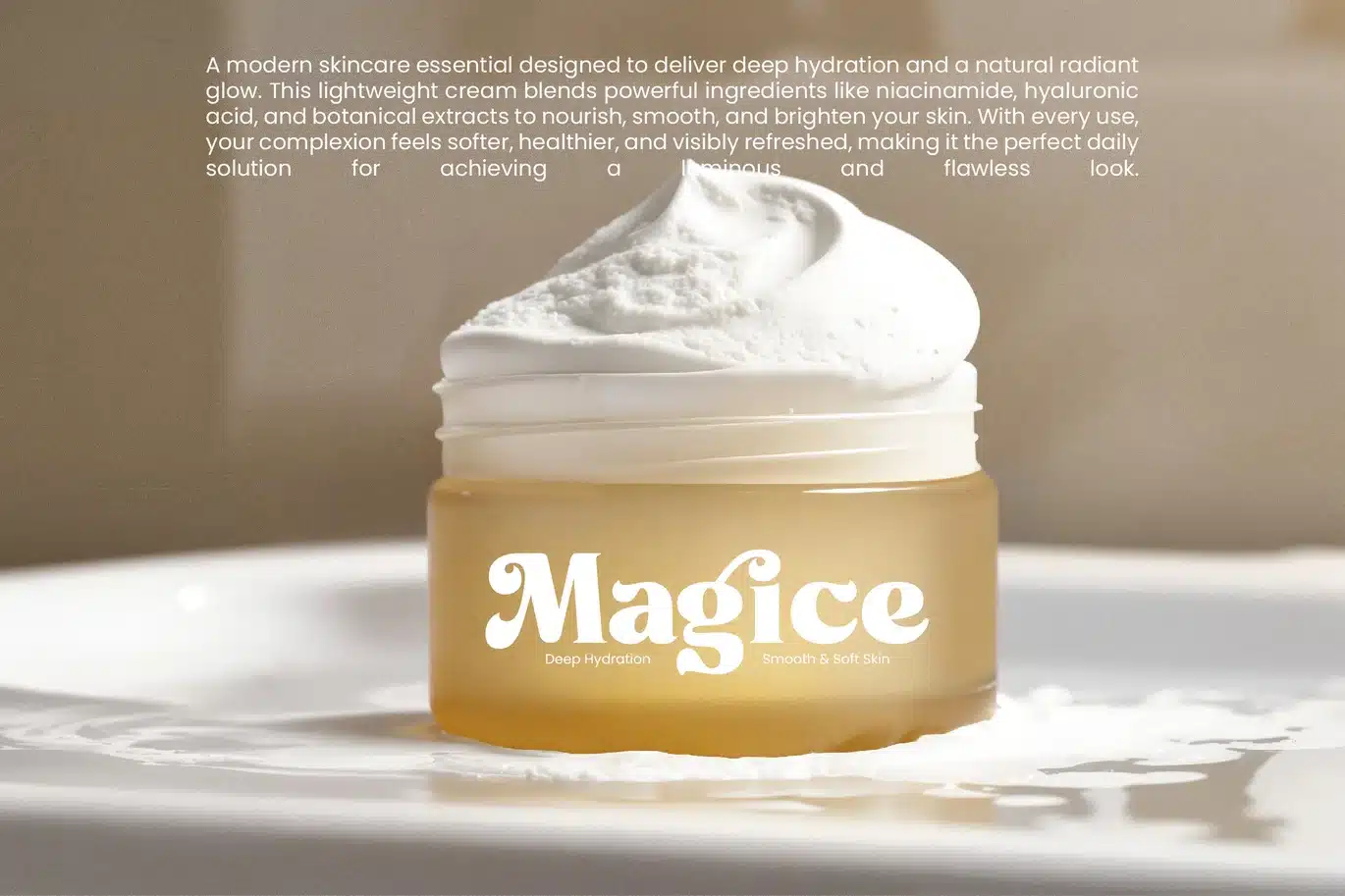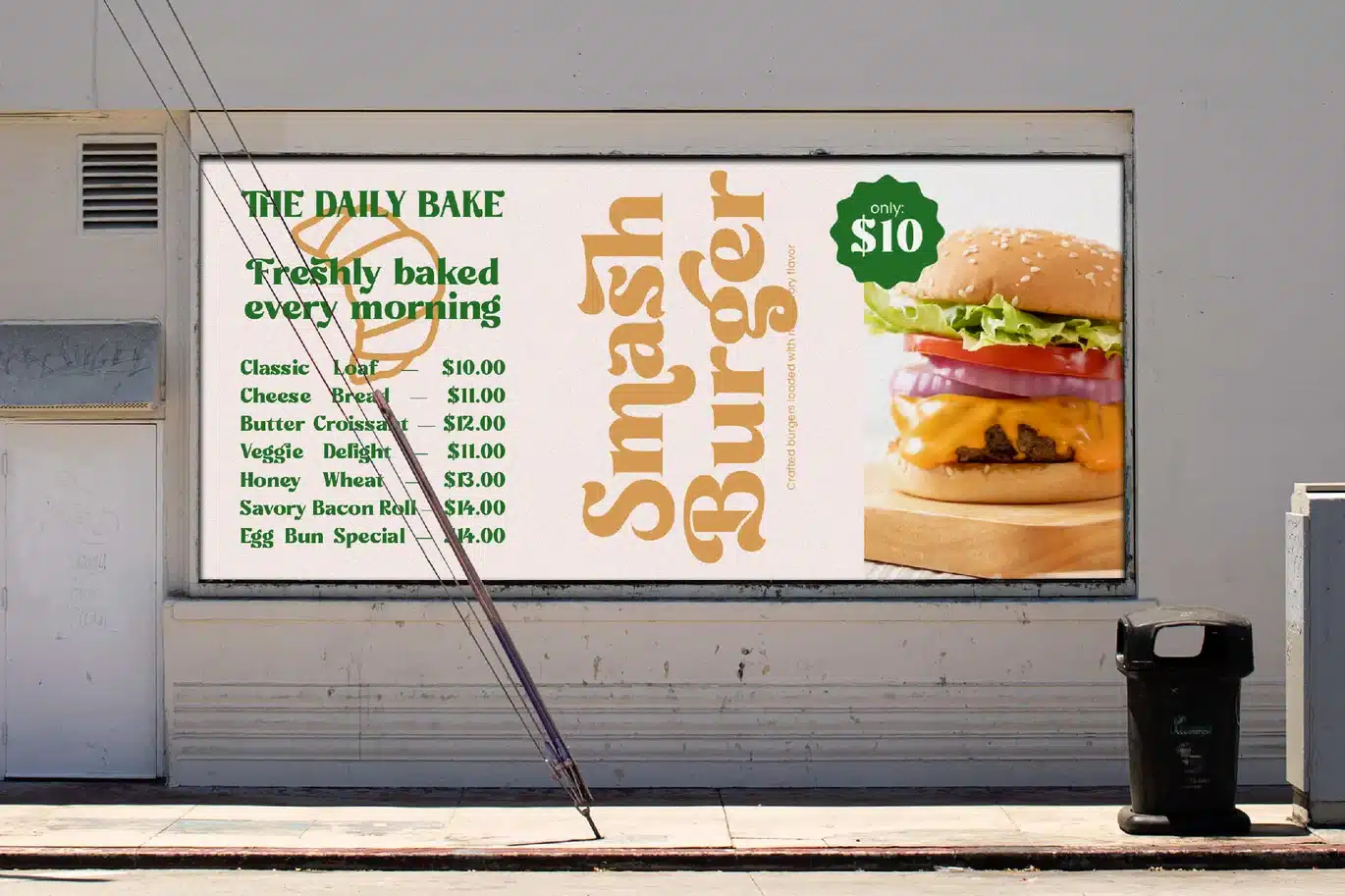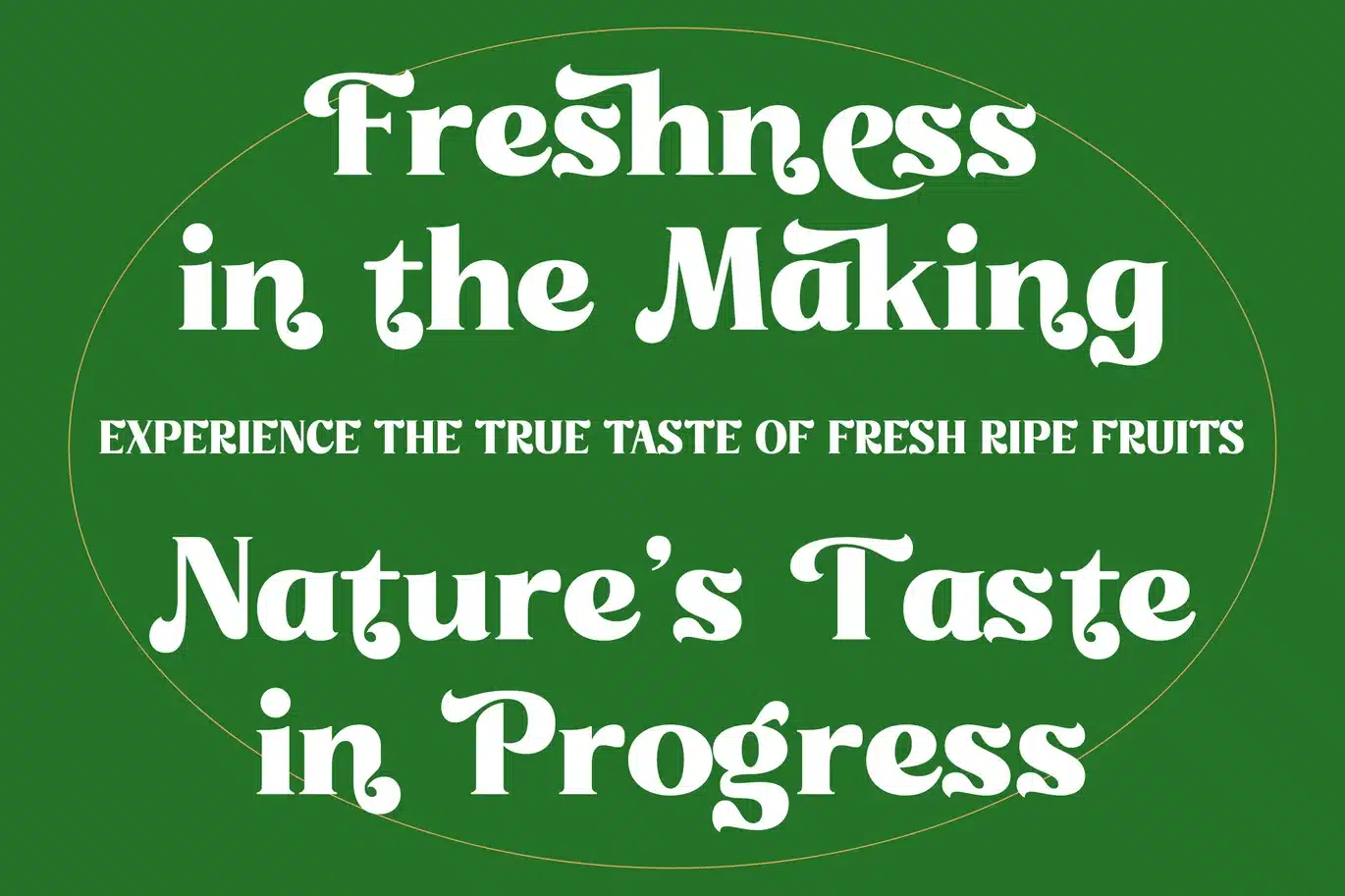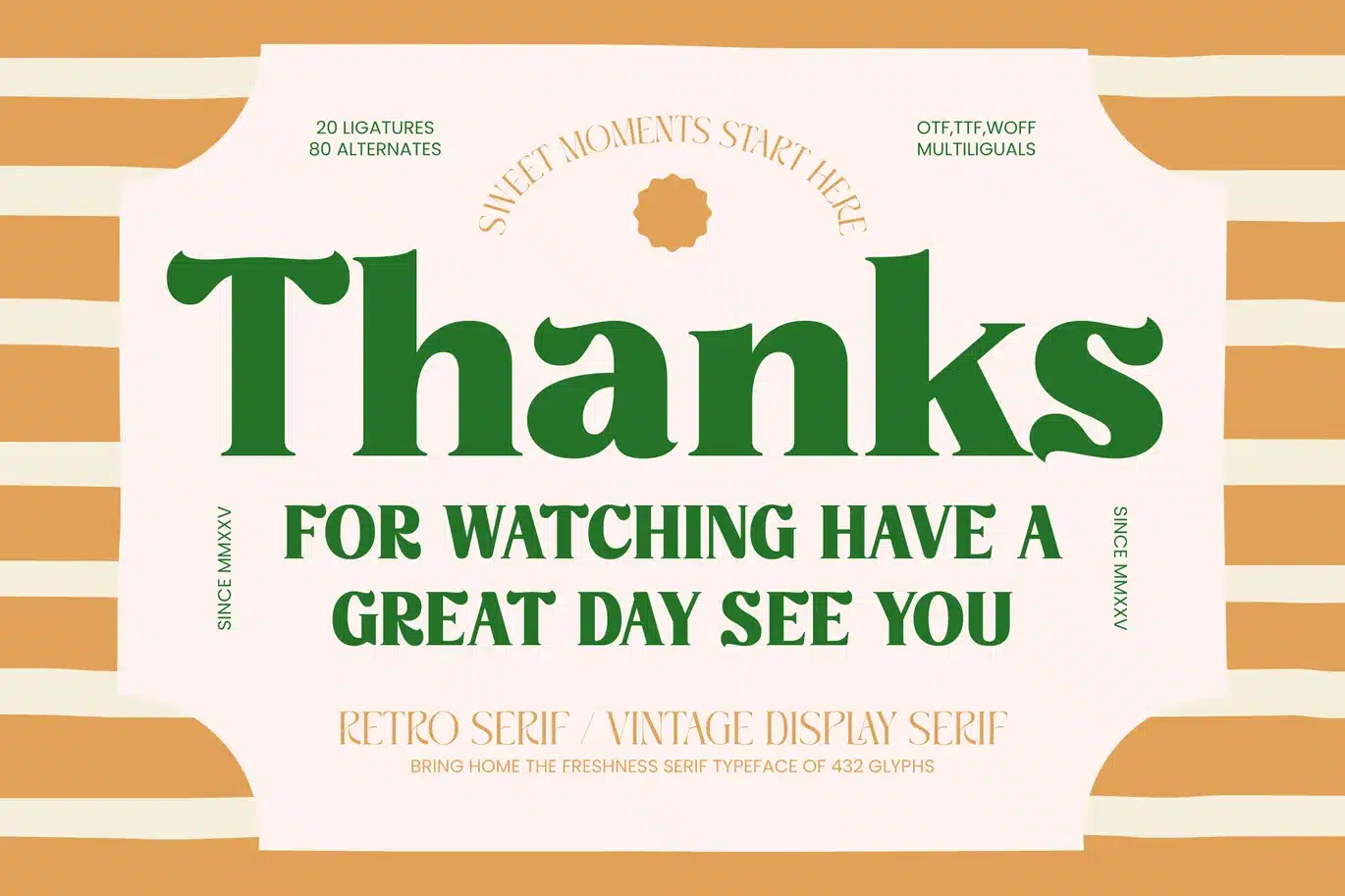
Misago Sweet – Retro Serif Font
Misago Sweet - Retro Serif Vintage Display Font
Step into a world of timeless elegance and groovy sophistication with Misago Sweet - Retro Serif Vintage Display Font. This bold serif typeface perfectly balances nostalgic charm with modern refinement, making it a standout choice for high-impact visual storytelling. Its high-contrast strokes and fluid curves evoke a sense of vintage luxury, ensuring your headlines command immediate attention while maintaining a polished professional edge.
Unlock unparalleled creative flexibility with a comprehensive glyph set that includes 20 ligatures and 80 alternates for custom character styling. The organic flow of Misago Sweet - Retro Serif Vintage Display Font allows designers to craft bespoke typography effortlessly, providing a premium aesthetic for any creative project. With its extensive multilingual support, Misago Sweet - Retro Serif Vintage Display Font adapts seamlessly across global markets, making it incredibly versatile for international projects.
Redefine your brand identity across a wide range of commercial applications where personality and legibility are paramount. This typeface is perfect for luxury branding, premium packaging, editorial design, and high-end . Whether used for a bold logo design or a stylish magazine layout, Misago Sweet - Retro Serif Vintage Display Font delivers a distinguished presence that resonates with contemporary audiences seeking retro-inspired aesthetics.
Elevate your design portfolio with a tool built for professional excellence and ease of use in diverse digital environments. Misago Misago Sweet - Retro Serif Vintage Display Font ensures cross-platform compatibility for both web and print production. Choosing Misago Sweet - Retro Serif Vintage Display Font means investing in a versatile design asset that transforms ordinary text into a compelling visual experience, perfect for any visionary designer.